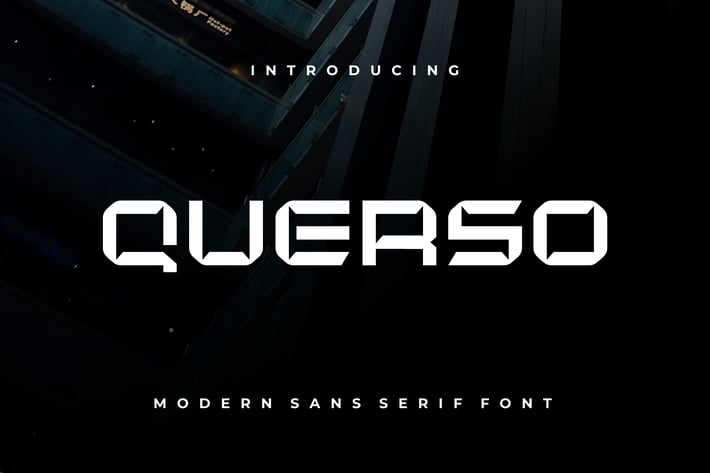
Querso Font
Introducing our new product Querso Font - Modern Font
Querso Font - Modern Font is a bold and authentic display font. The font is suitable for any branding project like logo, esport, and many more. outstanding in a wide range of contexts.